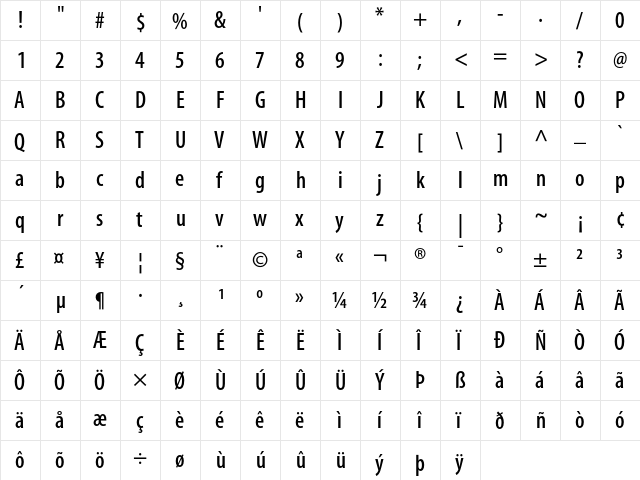
Adobe Corporate ID Myriad Package
Design Context for Adobe Corporate ID Typeface
Adobe Corporate ID offers clean, dependable letterforms without strong stylistic allegiance, making it a practical choice for designers who need flexibility.